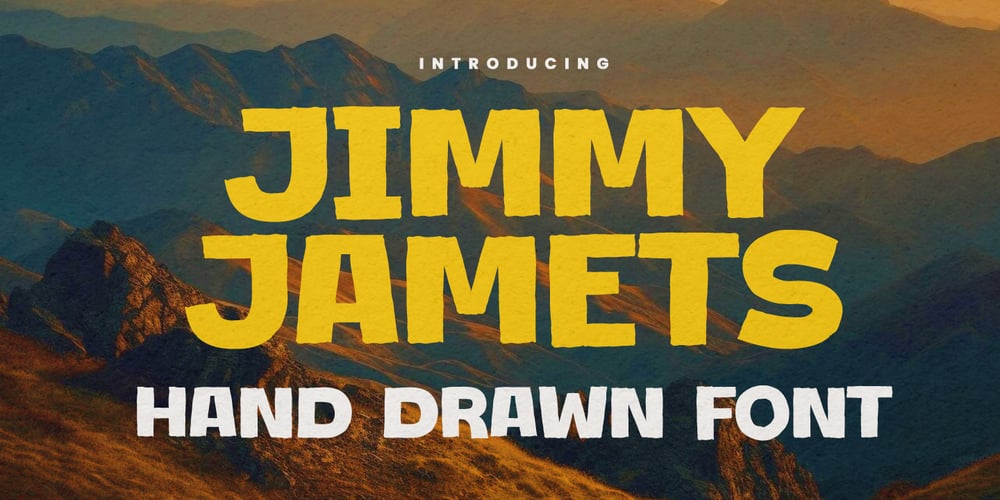
Jimmy Jamets Font Family was designed by Abdul Malik Wisnu, Anang Fibriyanto and published by Gassstype. Jimmy Jamets contains 1 styles and family package options. Hello Everyone, introduce our new product Font Jimmy Jamets This Is Hand Drawn Font.This is a Textured Natural Style and classy style with a clear style and dramatic movement.This font Jimmy Jamets is great for your next creative project such as logos, printed quotes, invitations, cards, product packaging,